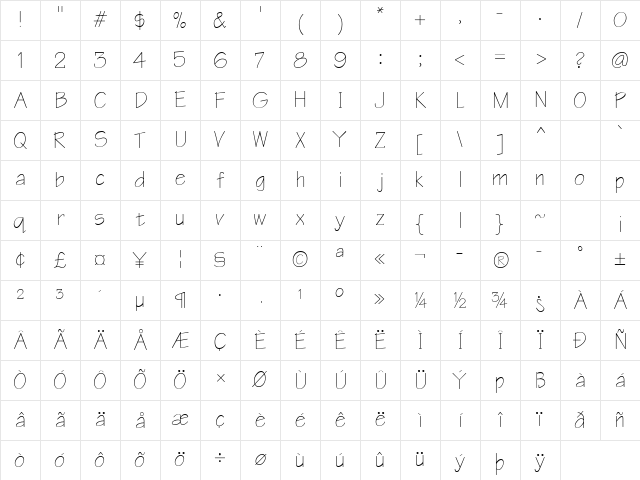
WritePlain Regular Free Font
WritePlain Regular
Design Context for WritePlain
WritePlain is a composed and adaptable typeface that performs quietly and consistently across a wide range of design contexts.